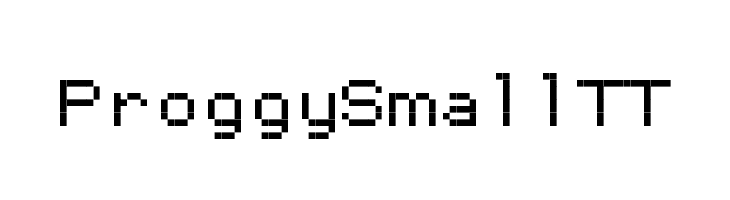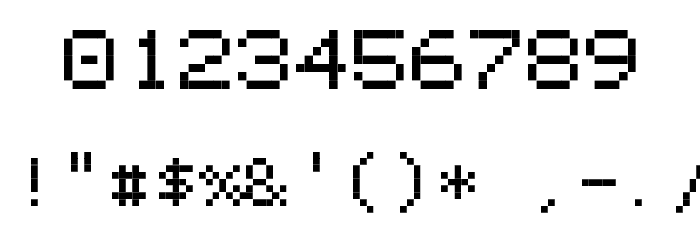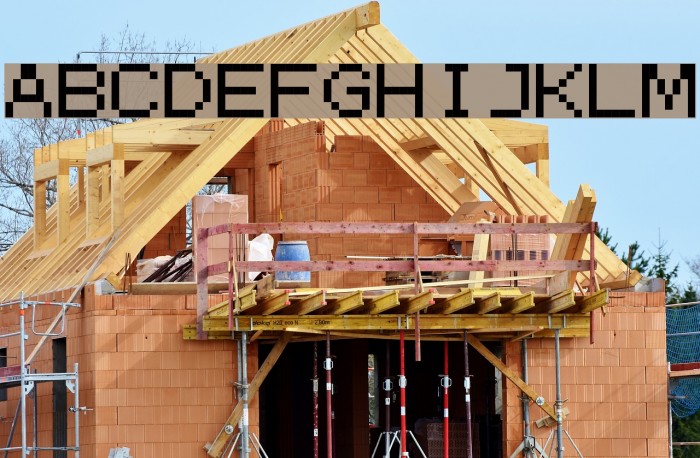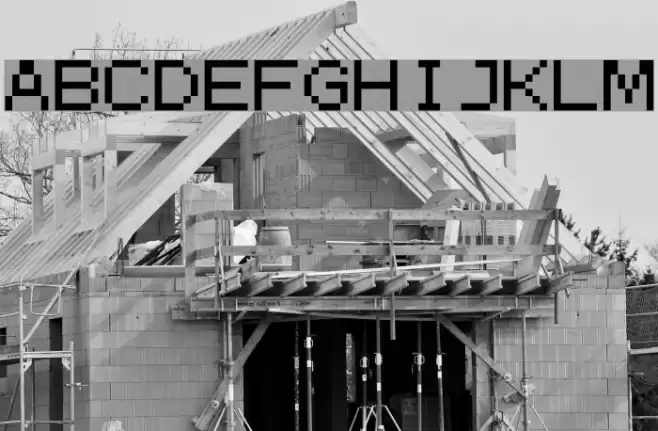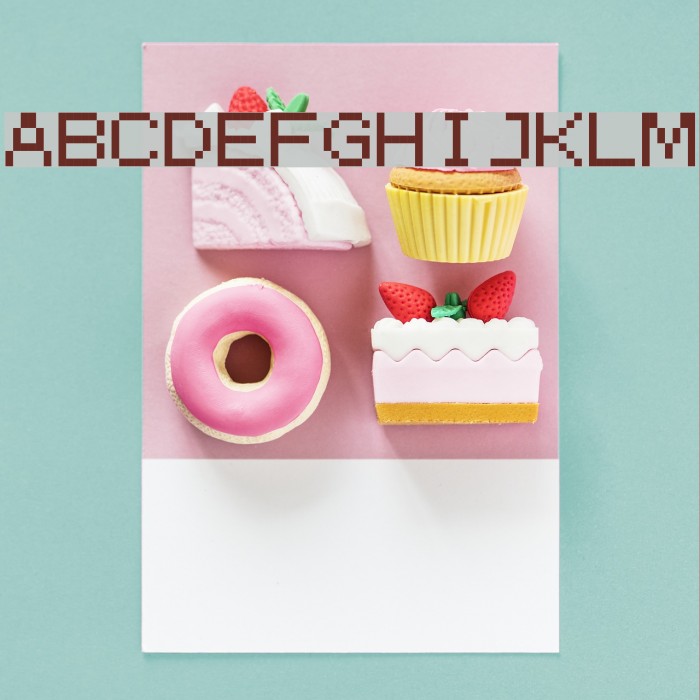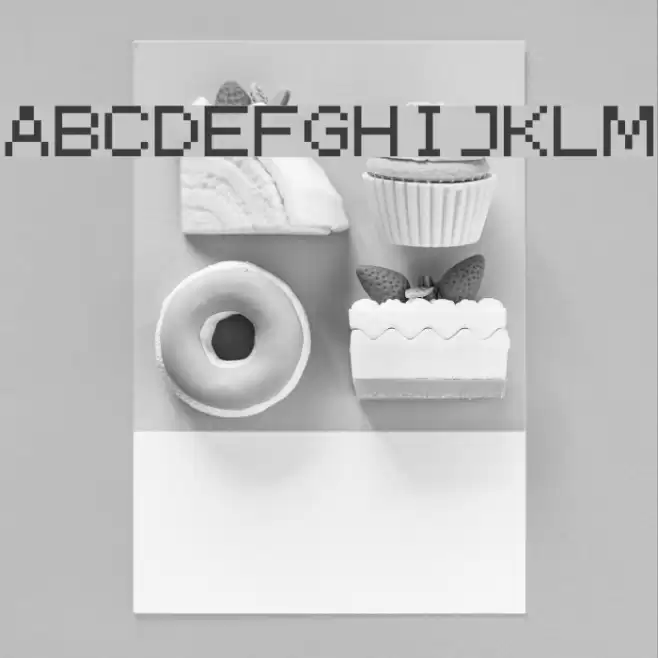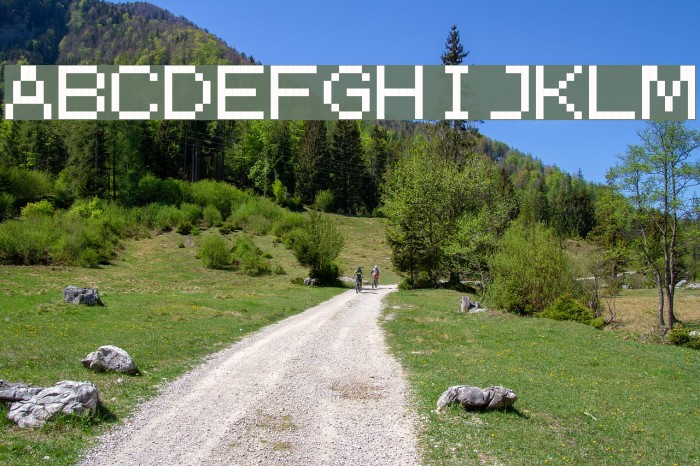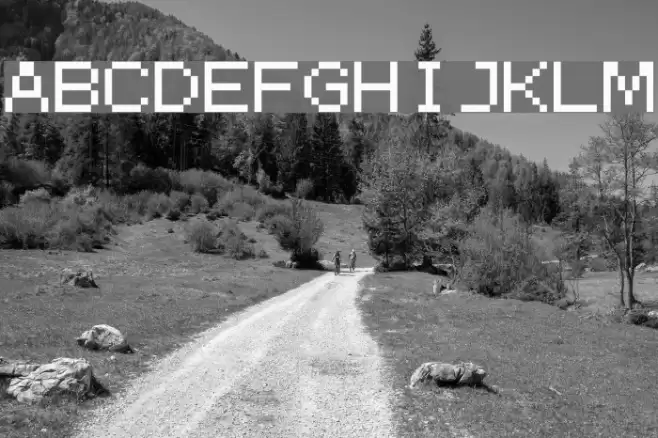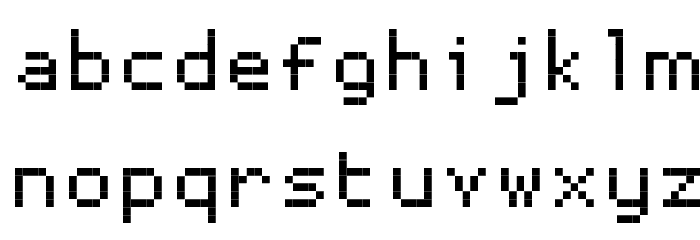
ProggySmallTT Font
ProggySmallTT Description
This font is a pixelated, monospaced typeface that evokes a retro, digital aesthetic reminiscent of early computer screens and video games. Each character is composed of small, square pixels, giving it a blocky and geometric appearance. The uniformity in character width ensures consistent spacing, making it ideal for coding and terminal displays. The uppercase and lowercase letters maintain a clear distinction, while the numerals and special characters are easily recognizable, enhancing readability. Its simplicity and clarity make it suitable for environments where legibility is crucial, especially in low-resolution displays.
| Overall Style | Vintage |
| Use Case | Coding, Terminal displays, Retro designs |
| Proposed Projects | Perfect for retro video games, coding environments, digital art projects, and any design requiring a vintage computer screen look. |